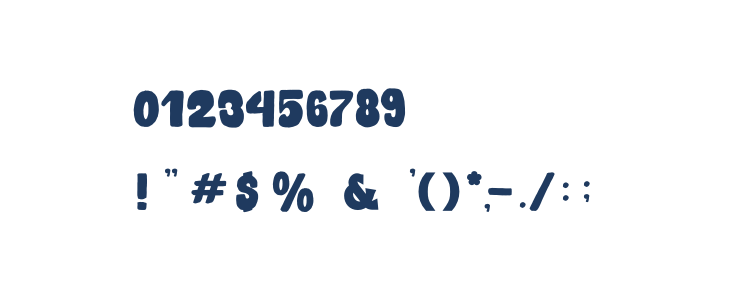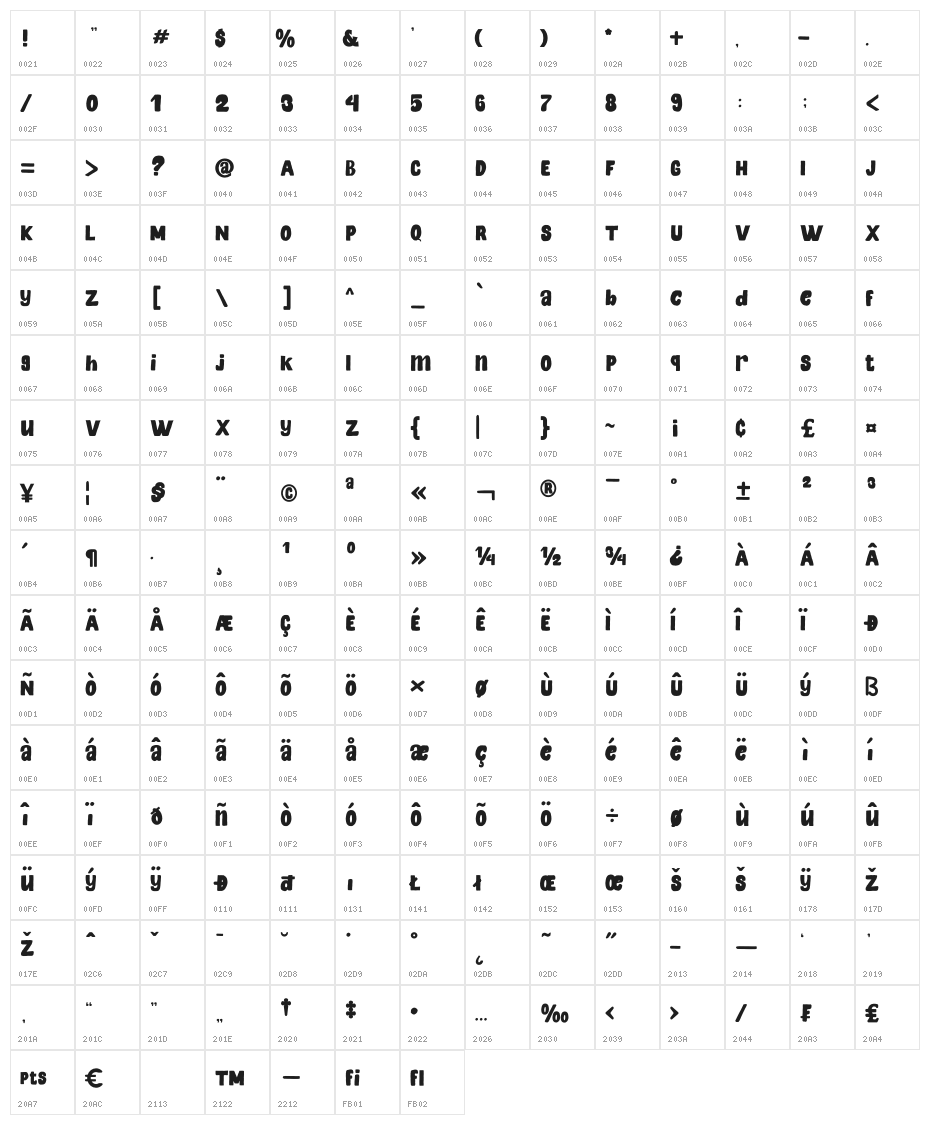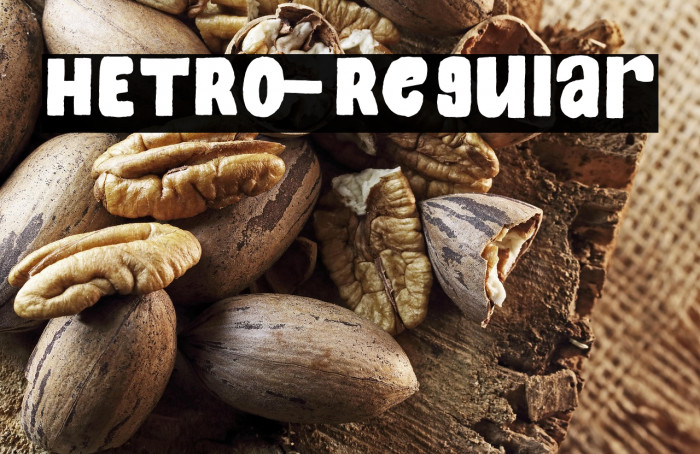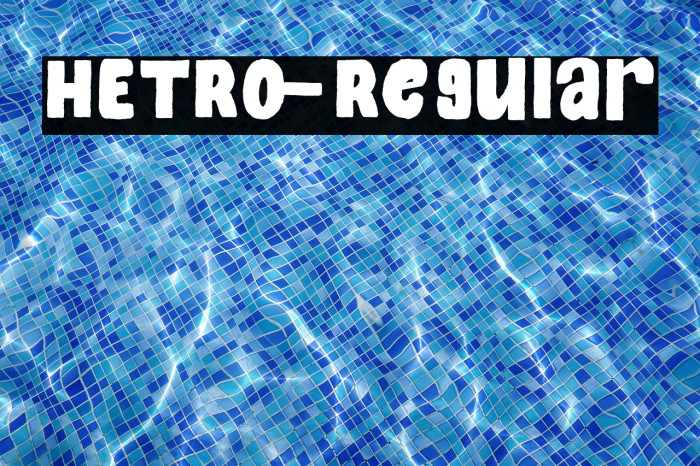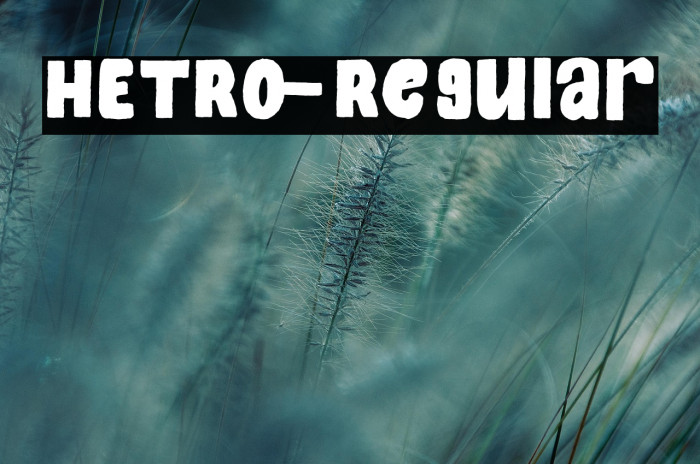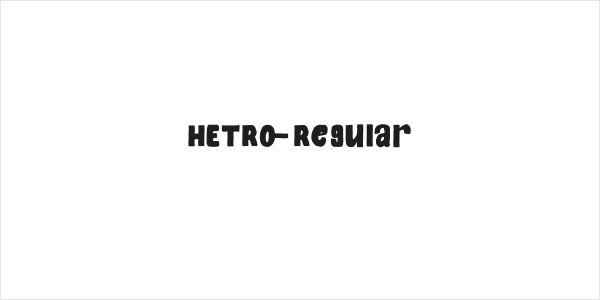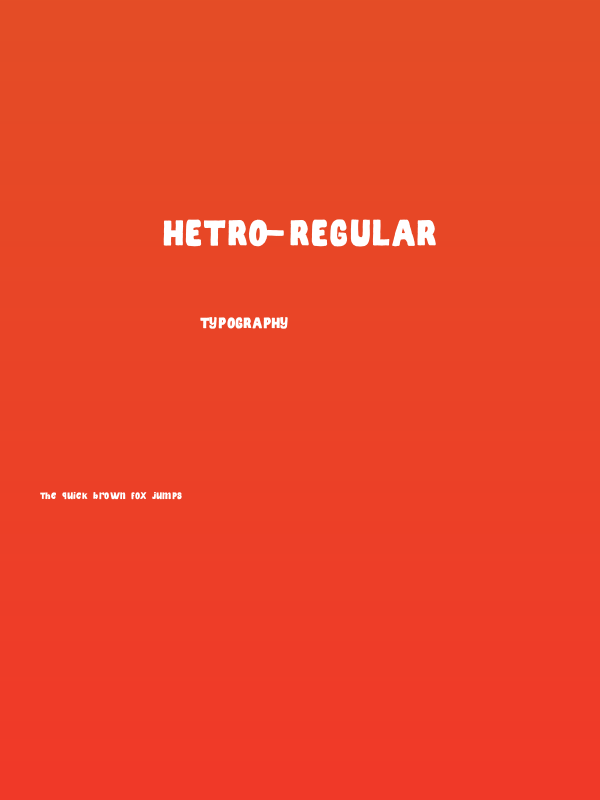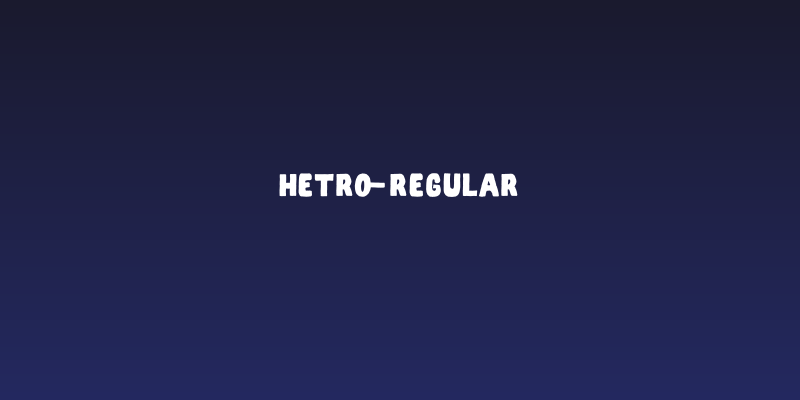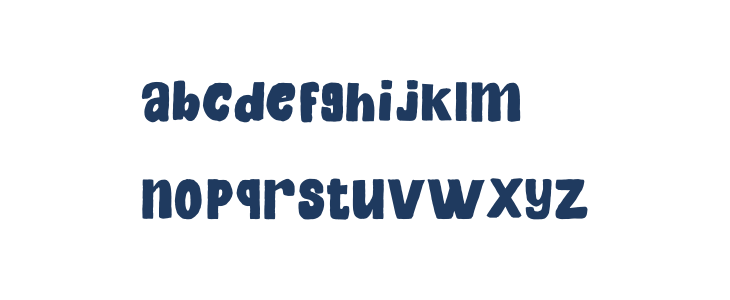
HETRO-Regular Font
HETRO-Regular Description
This font features a bold and playful design with rounded edges and a slightly irregular shape, giving it a hand-drawn appearance. The characters are thick and substantial, making them highly visible and impactful. The uppercase and lowercase letters maintain a consistent style, with a whimsical touch that adds personality. The numbers and special characters follow the same design principles, ensuring uniformity across all glyphs. This font is ideal for projects that require a fun and engaging look, such as children's books, posters, or creative branding.
| Proposed Projects | Children's books, posters, creative branding, playful packaging. |